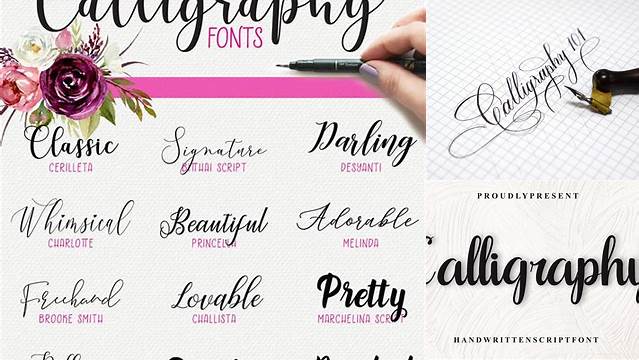
Design Calligraphy Fonts Free Online? [A How-To Guide]
Hey guys! Ever been captivated by the elegant swirls and flourishes of calligraphy? Or perhaps you're working on a project that needs a touch of sophistication? Well, you're in the right place! This article is your ultimate guide to exploring the world of calligraphy font design online, and guess what? You can do it for free! We'll delve into various aspects, from understanding what makes a font truly 'calligraphic' to finding the best online tools and resources. Get ready to unleash your inner artist and create some stunning designs. This journey into calligraphy font design online free will empower you to craft unique and beautiful typography for any project you have in mind.
1. Understanding the Basics of Calligraphy Fonts
So, what exactly is a calligraphy font? It's more than just a fancy typeface, guys. Calligraphy fonts are designed to mimic the strokes of traditional hand lettering, giving a sense of elegance and artistry that's hard to replicate with standard fonts. These fonts often feature varying stroke widths, flowing connections between letters, and decorative flourishes. When thinking about calligraphy font design online free, it's important to understand these core elements. The beauty of calligraphy lies in its organic, handmade feel, so the best digital fonts strive to capture that essence. Think about the contrast between thick and thin lines, the curves and loops, and the overall rhythm of the letters. These are the building blocks of stunning calligraphy, and they're essential to consider whether you're downloading a pre-made font or creating your own with free online tools. Understanding the history and techniques behind traditional calligraphy can also enrich your appreciation for digital fonts and help you make informed design choices. By grasping these fundamentals, you'll be well-equipped to navigate the world of calligraphy fonts and use them effectively in your projects.
2. Exploring Different Styles of Calligraphy Fonts
The world of calligraphy fonts is incredibly diverse, offering a style for every project and personality. From elegant and formal to playful and whimsical, there's a calligraphy font out there waiting to be discovered. When considering calligraphy font design online free, think about the mood you want to convey. A formal invitation might call for a classic script like Copperplate or Spencerian, known for their delicate lines and graceful curves. For a more modern and casual feel, you might explore brush lettering styles or modern calligraphy fonts that incorporate bold strokes and playful variations. Gothic or blackletter fonts, with their sharp angles and dramatic presence, are perfect for projects that need a touch of historical flair. Understanding these different styles is key to choosing the right font for your needs. Each style has its own unique characteristics and evokes a different feeling. Experiment with various calligraphy font design online free options to see what resonates with your vision. Don't be afraid to mix and match styles (with caution!) or even create your own hybrid style by combining elements from different fonts. The possibilities are endless, so dive in and explore the vast landscape of calligraphy typography.
3. Top Online Resources for Free Calligraphy Fonts
5. Designing Your Own Calligraphy Font Online: Tools and Techniques
Feeling adventurous? Why not try designing your own calligraphy font? While it might sound intimidating, several online tools make it surprisingly accessible, even for beginners. Exploring calligraphy font design online free gives you complete creative control, allowing you to craft a font that perfectly matches your vision. There are various approaches to designing your own font. You can start by sketching letters by hand and then digitizing them using a vector graphics program like Adobe Illustrator or Inkscape (a free alternative). Alternatively, you can use online font creation tools like Calligraphr or FontStruct. These platforms allow you to draw letters directly on a template or upload your own sketches and then convert them into a usable font file. Designing a calligraphy font requires patience and attention to detail. Pay close attention to the consistency of your letterforms, the spacing between letters, and the overall flow of the font. Experiment with different stroke thicknesses, angles, and flourishes to create a unique and expressive typeface. While the process may take time, the reward of having your own custom calligraphy font is well worth the effort. Plus, diving into the design process will give you a deeper appreciation for the artistry and craftsmanship behind all fonts.
6. Best Practices for Using Calligraphy Fonts in Design Projects
Okay, you've found some gorgeous calligraphy fonts or even designed your own – now what? Using these fonts effectively in your design projects is crucial to achieving the desired impact. Calligraphy fonts, while beautiful, can sometimes be challenging to read, especially in large blocks of text. Therefore, it's best to use them sparingly, typically for headings, titles, logos, or short phrases. When considering calligraphy font design online free, think about hierarchy and legibility. Pair your calligraphy font with a simpler, more readable font for body text. This creates a visual contrast and ensures that your message is clear. Pay attention to the size and spacing of your calligraphy font. Adjust the kerning (the space between individual letters) and the tracking (the overall spacing between letters) to optimize readability. Too much or too little spacing can make the font look awkward or illegible. Consider the context of your design. A formal script might be perfect for a wedding invitation but less suitable for a website banner. By following these best practices, you can harness the beauty of calligraphy fonts without sacrificing clarity and impact.
7. Calligraphy Fonts for Logos: Creating a Unique Brand Identity
A well-chosen calligraphy font can be a powerful asset in creating a unique and memorable logo. The elegance and artistry of calligraphy can instantly elevate a brand's image, conveying sophistication, craftsmanship, or a personal touch. However, using calligraphy fonts in logos requires careful consideration. A logo needs to be legible and scalable, so it's crucial to choose a font that remains clear even at small sizes. When exploring calligraphy font design online free for logo purposes, think about the brand's personality and values. A classic script might suit a high-end boutique, while a modern brush lettering style could be perfect for a creative agency. Keep the logo simple and avoid overly ornate fonts that can clutter the design. Consider the negative space around the letters and how the font interacts with other elements in the logo. Test the logo in various sizes and applications, such as business cards, websites, and social media profiles, to ensure it remains effective. A calligraphy font can add a distinctive flair to your logo, but careful planning and execution are essential to creating a lasting brand identity.
8. Calligraphy Fonts for Wedding Invitations: Adding a Touch of Elegance
Ah, wedding invitations! This is where calligraphy fonts truly shine. The graceful curves and flourishes of calligraphy add an undeniable touch of elegance and romance to wedding stationery. When designing wedding invitations, the calligraphy font you choose can set the tone for the entire event, from classic and formal to modern and whimsical. When exploring calligraphy font design online free for invitations, consider the overall style of the wedding. A traditional wedding might call for a classic script like Spencerian or Copperplate, while a more contemporary celebration could embrace a modern calligraphy font with bold strokes and unique letterforms. Think about the legibility of the font. While beauty is important, your guests need to be able to read the invitation details clearly. Pair your calligraphy font with a simpler font for the body text, such as the date, time, and location. Pay attention to the layout and spacing of the invitation. Leave enough white space to create a clean and balanced design. Using calligraphy fonts in wedding invitations is a timeless way to add a personal and elegant touch, making your special day even more memorable.
So, there you have it, guys! A comprehensive guide to the wonderful world of calligraphy font design online free. From understanding the basics and exploring different styles to finding resources and designing your own fonts, we've covered a lot of ground. Remember that mastering calligraphy fonts takes time, practice, and a keen eye for detail. But with the right tools and knowledge, you can create stunning typography that elevates your designs and expresses your unique creativity. So, go forth, explore, and have fun with calligraphy fonts!